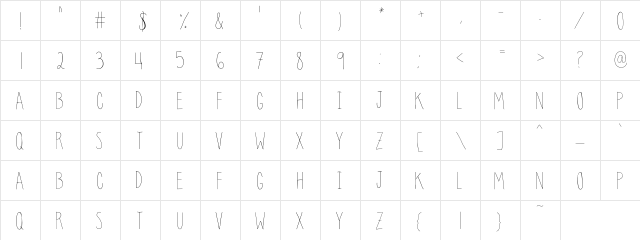
SloppySeconds Medium
Design Context for SloppySeconds Typeface
SloppySeconds is a composed and adaptable typeface that performs quietly and consistently across a wide range of design contexts. Its narrow stance lets it pack a punch even in space-constrained designs.